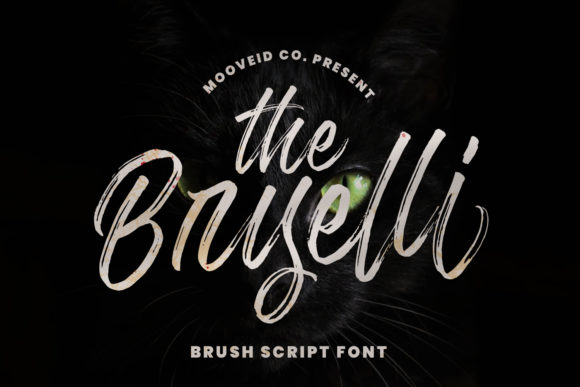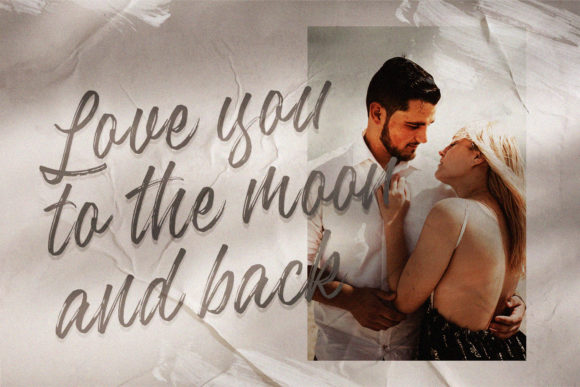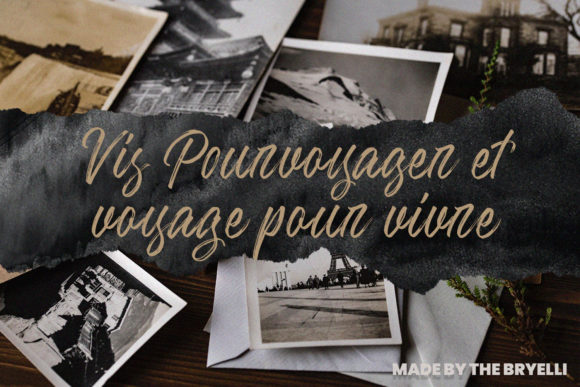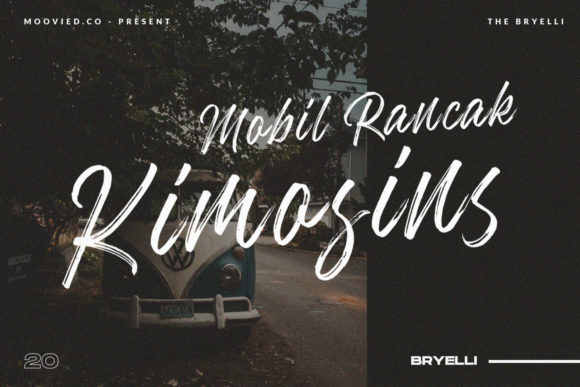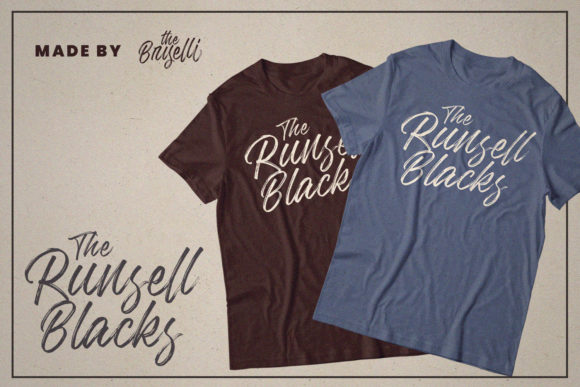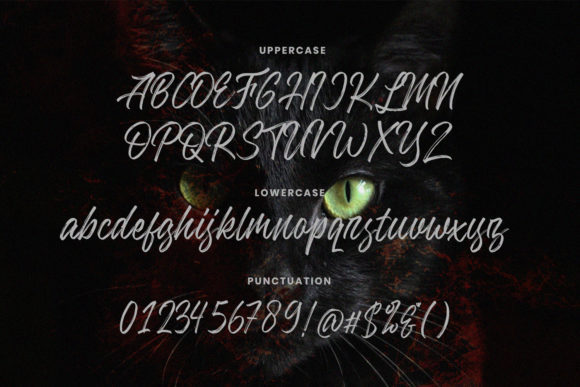
The Bryelli Font
About The Bryelli Font
The Bryelli results out of a stunning pairing of a brush pen and pencil that makes it look incredibly endearing and authentic. Use this gorgeous and unique handwritten font to bring any DIY project to life!